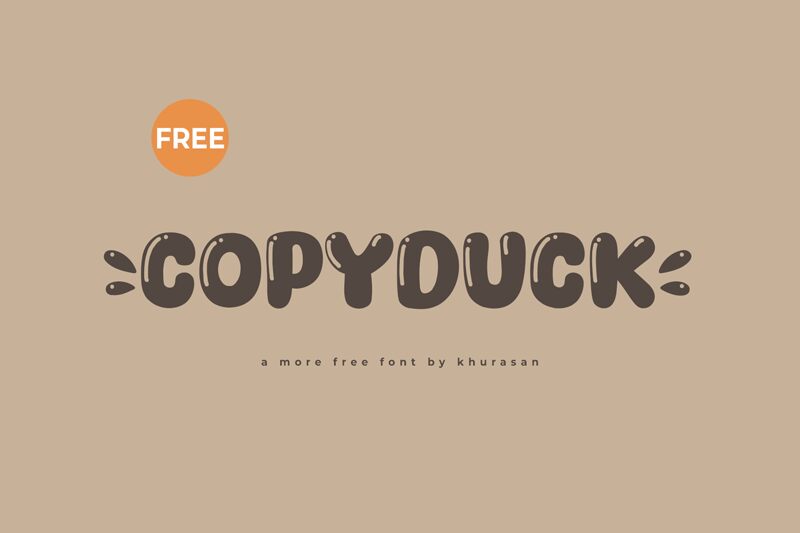
Copyduck
Copyduck, designed by Khurasan, leaps off the page with its extra-bold, cartoon-style flair. This display font captures the essence of fun and whimsy, making it an excellent choice for projects that aim to delight and engage. Its stout letterforms exude confidence and presence, ensuring that any message stands out with a touch of playfulness. The smooth curves paired with the substantial weight create a visual balance that's both aesthetically pleasing and impactful.
The Copyduck font is ideal for creative endeavors such as children's books, animated movie titles, playful branding campaigns, or any design work where a sense of humor and lightheartedness is desired. With its unique style and appearance, Copyduck promises to inject personality into your work and capture the imaginations of your audience.